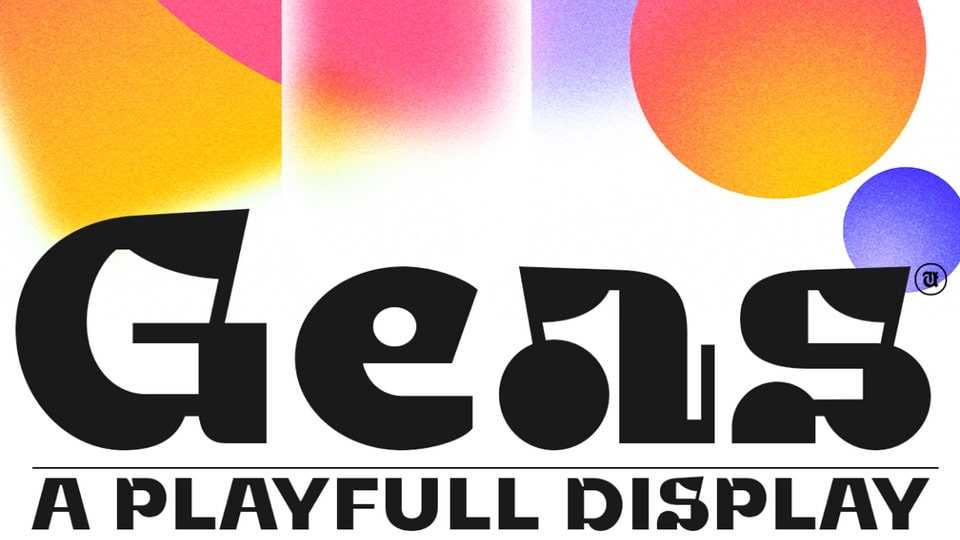
Download UT Geas font, a bold, expressive display typeface created for designers, marketers, and creatives who want their work to be seen and remembered.
Designer: Universitype Foundry